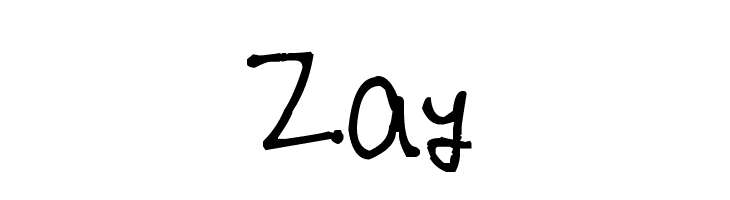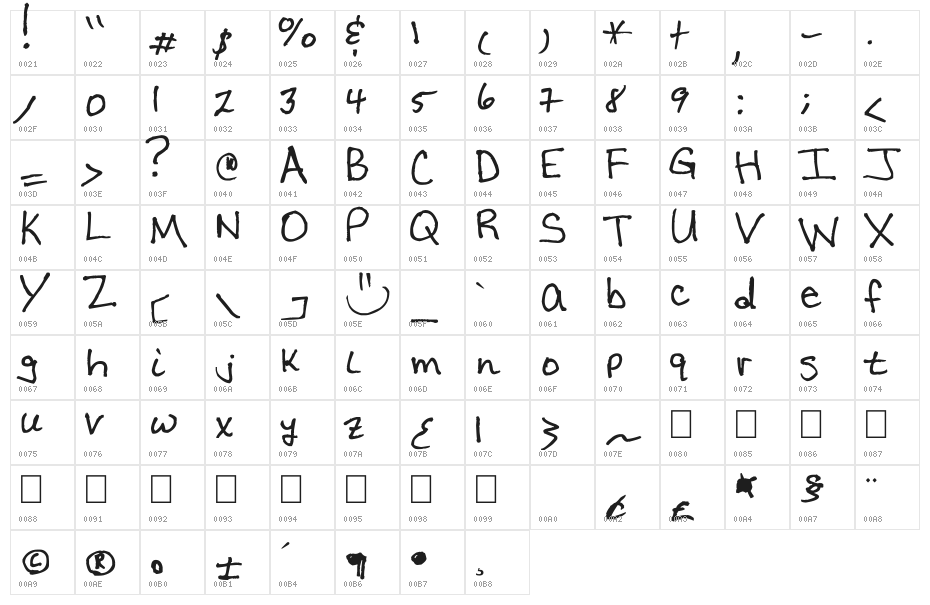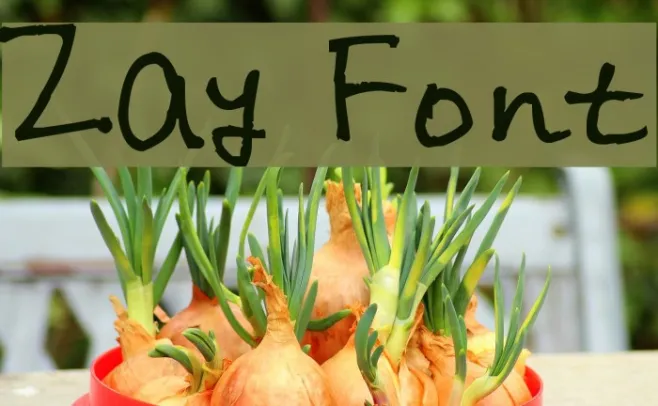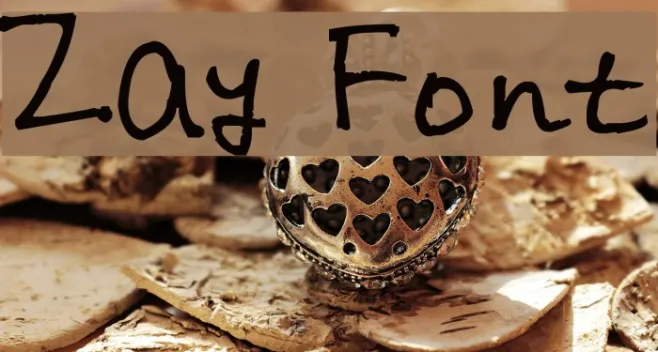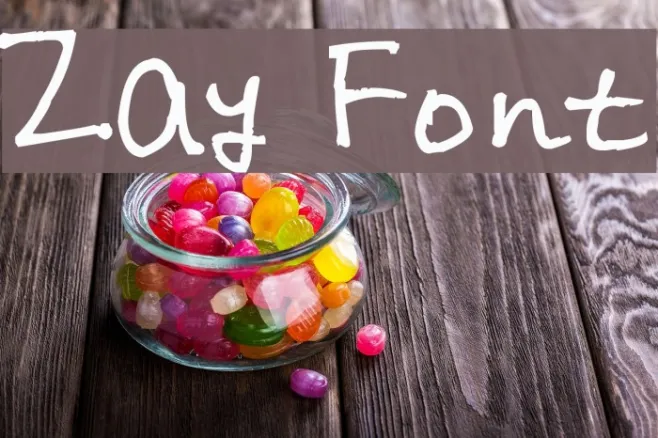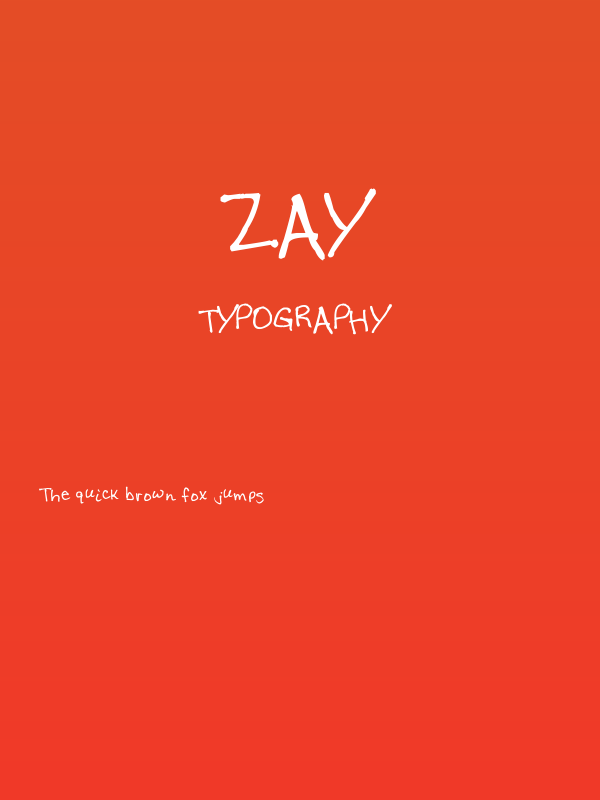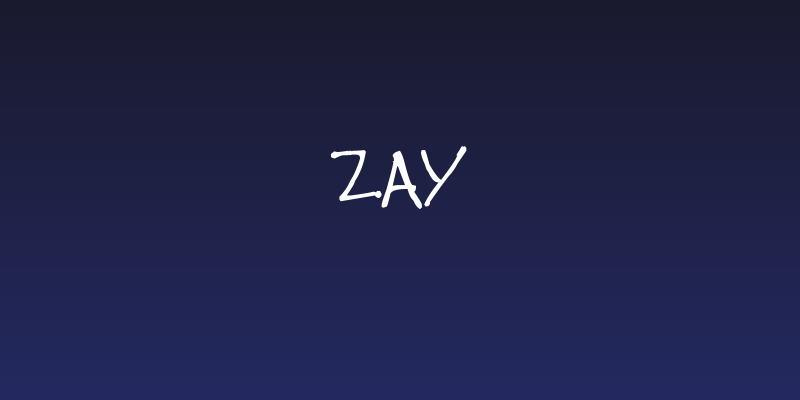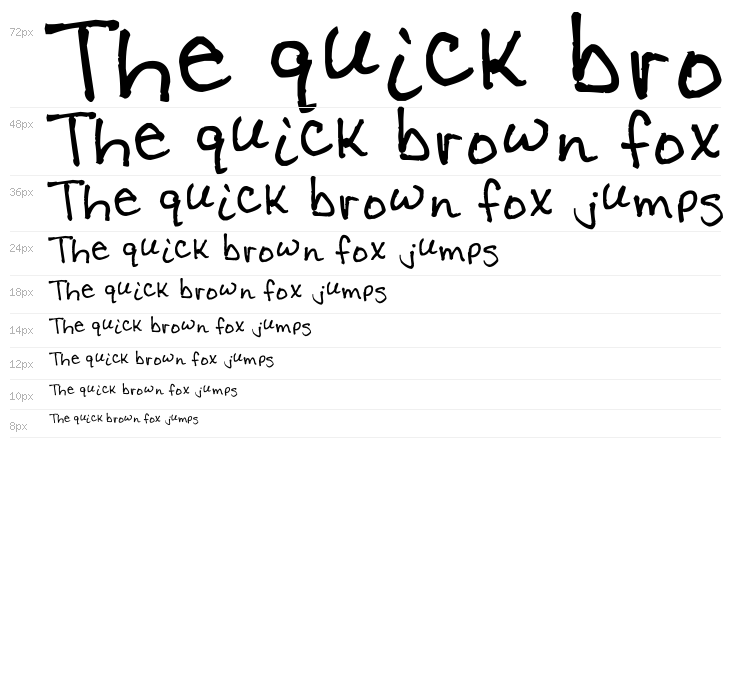
Zay Font
Zay Description
This font features a casual, handwritten style that mimics the look of natural handwriting. The characters are slightly irregular, adding a personal and informal touch. The strokes are bold and somewhat uneven, giving it a dynamic and lively appearance. The uppercase and lowercase letters maintain a consistent style, with rounded edges and a playful feel. Numbers and special characters follow the same aesthetic, ensuring a cohesive look across all text. This font is ideal for projects that require a personal or creative touch, such as greeting cards, invitations, or artistic posters.
| Use Case | Headlines, Creative projects, Informal communication |
| Proposed Projects | Ideal for greeting cards, invitations, artistic posters, and creative projects. |